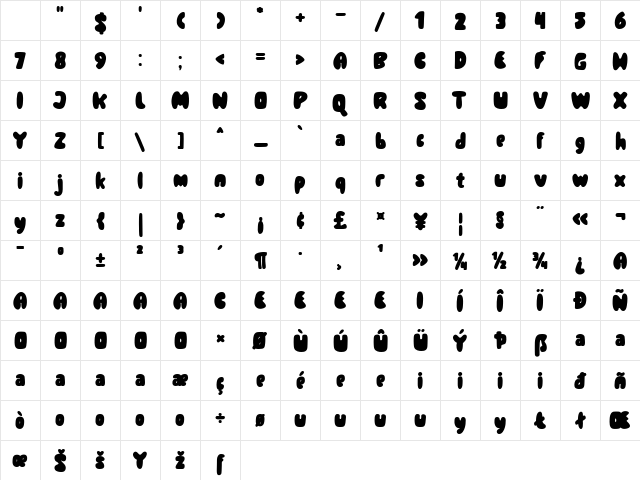
Complete Wylon - Demo Bold glyph index. Displaying only characters natively supported by Wylon - Demo Bold font.
Wylon - Demo is a composed and adaptable typeface that performs quietly and consistently across a wide range of design contexts. Its bold stroke weight gives it real presence on the page.